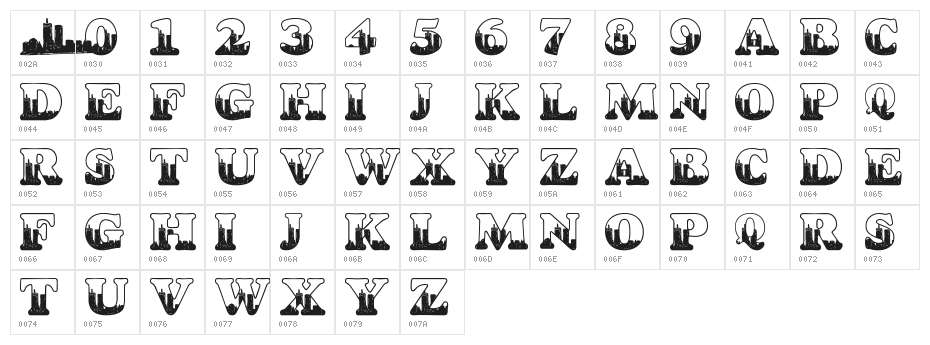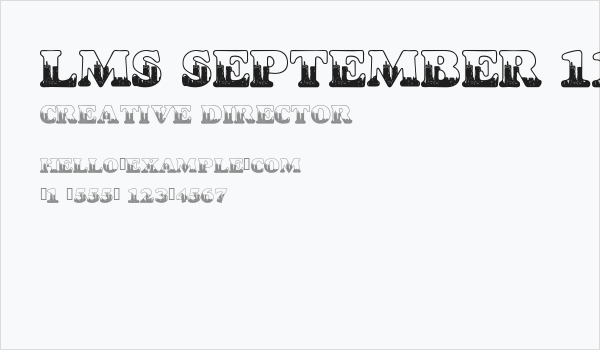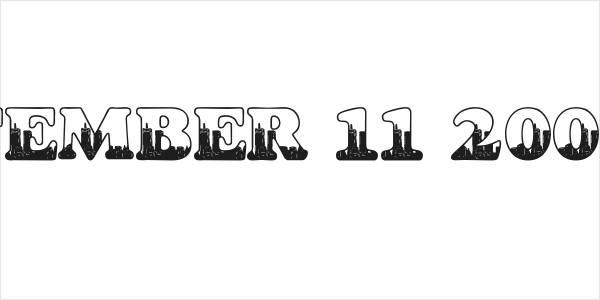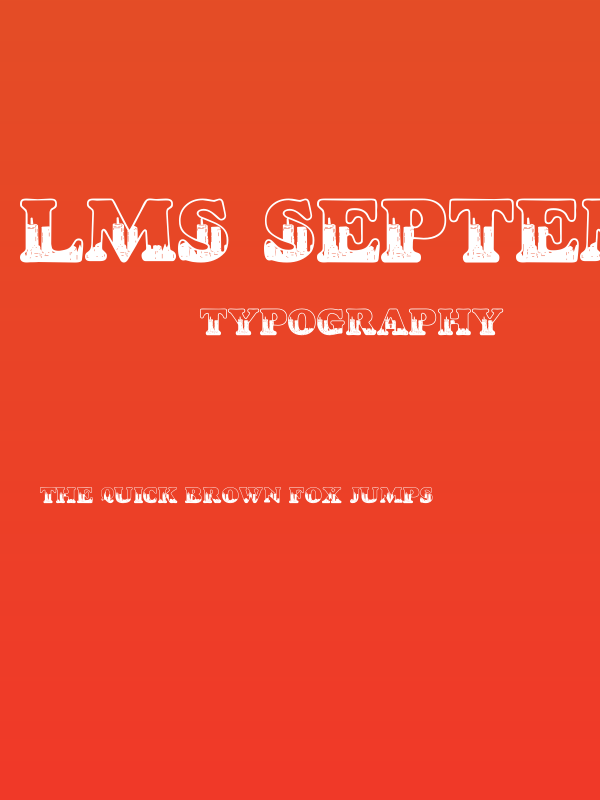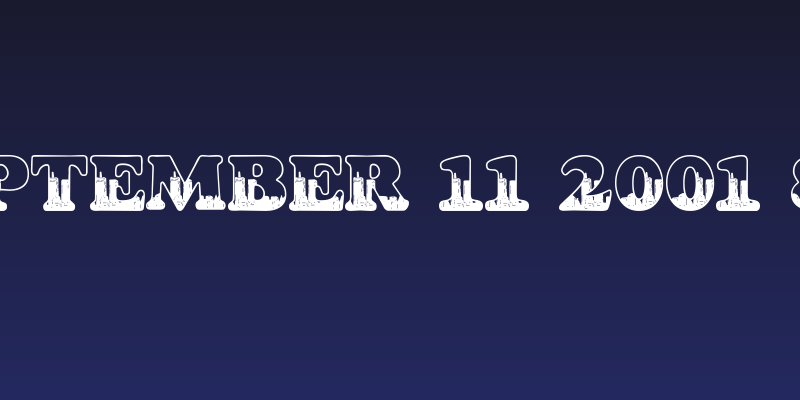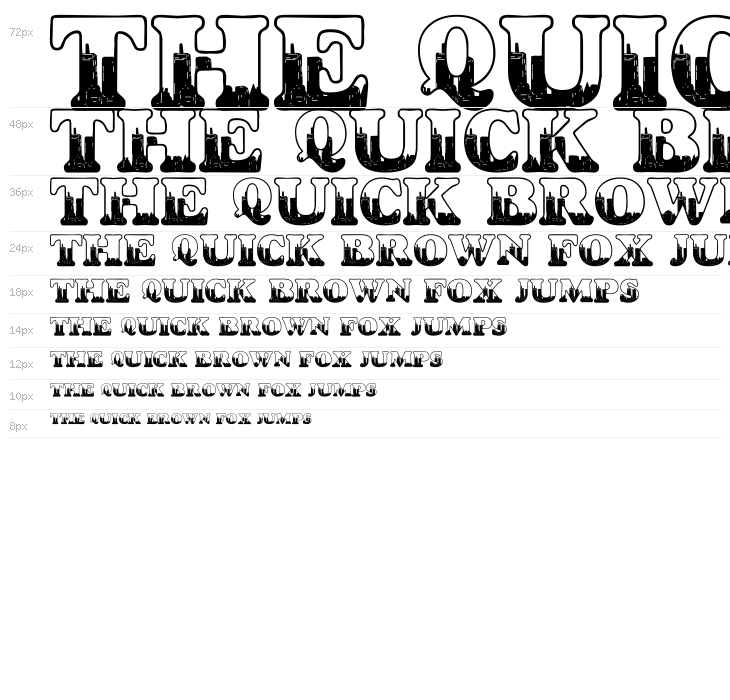
LMS September 11 2001 8:47 AM Font
LMS September 11 2001 8:47 AM Description
This font features a bold, decorative style with a unique cityscape silhouette integrated into each character. The uppercase letters and numbers are designed with a strong, impactful presence, making them ideal for attention-grabbing designs. The cityscape detail adds a layer of complexity and visual interest, making it suitable for themed projects or designs that require a dramatic flair. The characters are evenly spaced, ensuring readability despite the intricate design elements. This font is perfect for projects that aim to convey a sense of urban sophistication or historical significance.
| Proposed Projects | Ideal for posters, event invitations, themed branding, or any project requiring a dramatic urban aesthetic. |